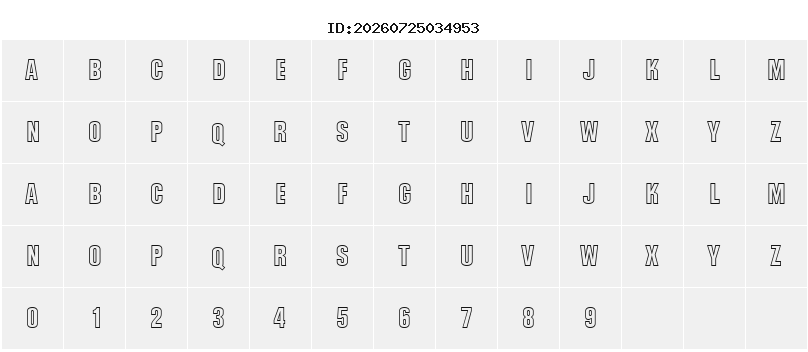
GothicOutTitD Preview
About GothicOutTitD.ttf
GothicOutTitD.ttf is a modern, elegant sans-serif font designed for ultimate readability and visual harmony. Perfect for branding, headlines, web design, and print materials.